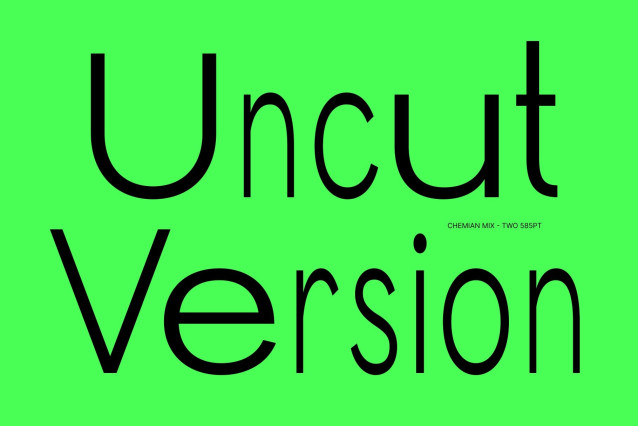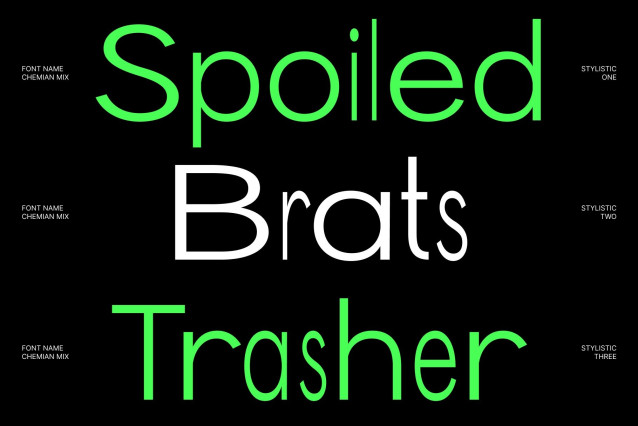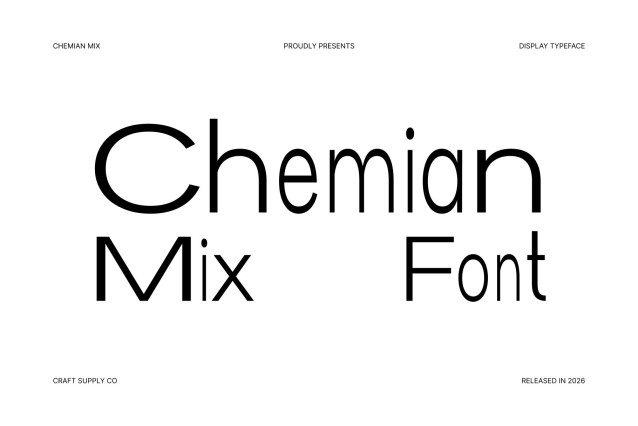
Chemian Mix Font
Chemian Mix – Modern Sans Serif Font: Clean Elegance with Contemporary Precision
Modern Sans Serif with Mixed Style Character
This is a modern sans serif font designed to deliver clarity, elegance, and functional sophistication. Built with clean geometry and balanced proportions, this typeface introduces a refined mixed-style concept that enhances visual rhythm while maintaining a smooth and professional appearance.
A Harmonious Blend of Thin and Regular Letterforms
The defining strength of this font lies in its thoughtful fusion of thin and regular characters. This mix creates a subtle typographic hierarchy that improves readability while adding visual interest. The contrast between weights brings structure and flow to layouts, making text feel dynamic yet controlled, clean yet expressive.